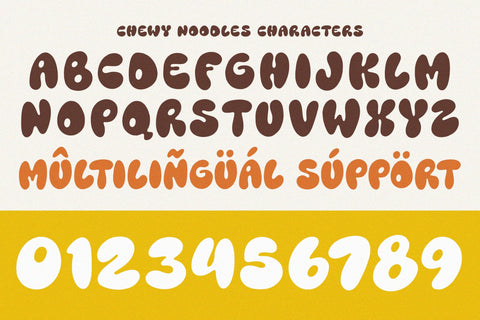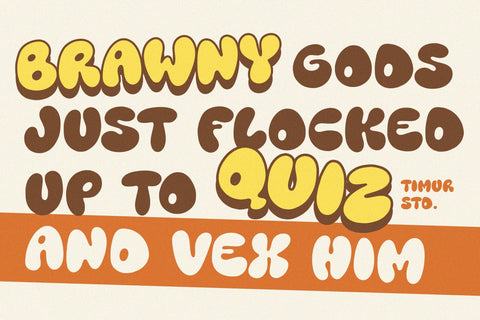
Chewy Noodles - Groovy Font
Chewy Noodles is a Groovy Font
This font is a retro and vibrant choice for your design projects. With its funky and playful letterforms, this font captures the essence of the groovy era. The bold and exaggerated strokes give the Chewy Noodles font a lively and energetic aesthetic, perfect for adding a retro and nostalgic touch to your branding materials, posters, and album covers. Whether you're aiming for a vintage and psychedelic look or a fun and lighthearted vibe, the Chewy Noodles font offers versatility and charm. Embrace the groovy energy of the Chewy Noodles font and transport your designs back to the colorful and vibrant era of the past
Chewy Noodles Font also supports multilingualism